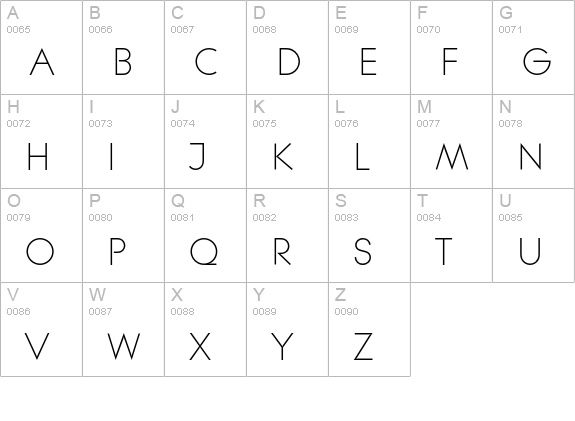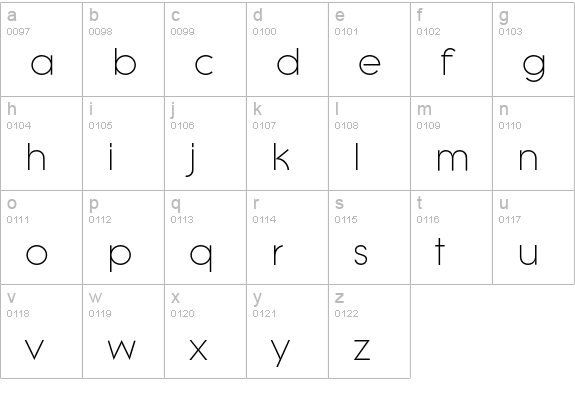
LiteraEF-Light Font Details
LiteraEF-Light is a refined, elegant variant in the LiteraEF typeface family \xE2\x80\x94 well suited to elegant body text, refined sub-headings, and luxury branding.
The LiteraEF-Light font is a sleek and modern typeface that exudes elegance and sophistication. With its clean lines and sophisticated curves, this font is perfect for a wide range of design projects, from branding to editorial. The light weight of the font adds a touch of airiness and delicacy, making it ideal for creating a sense of refinement and subtlety. What makes the LiteraEF-Light font even more appealing is that it is completely free to download. That's right - you can access this stunning typeface at no cost, making it a valuable addition to your font library without breaking the bank. Simply head over to FontsMarket.com to download the LiteraEF-Light font and start incorporating its beauty into your designs today.